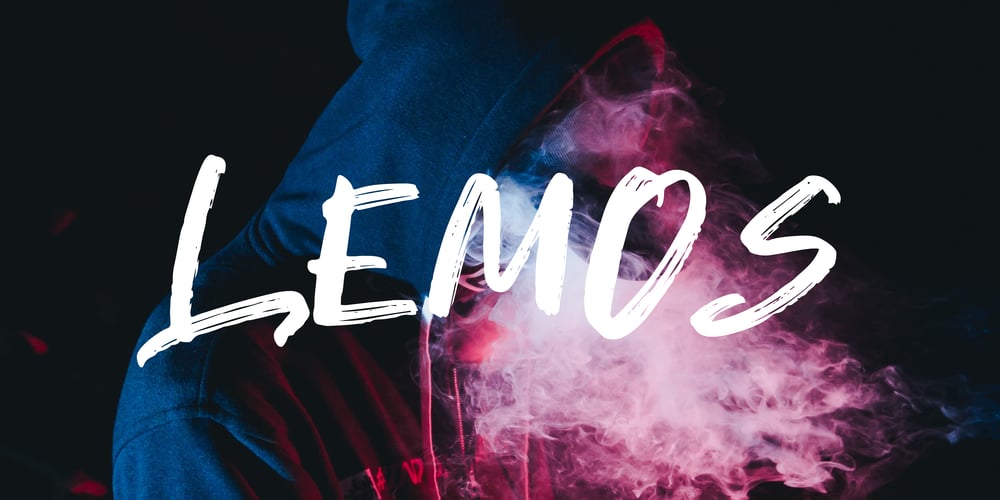
Lemos Font Family was designed by Mariyana and published by Goodigital13. Lemos contains 1 styles and family package options. hand drawn brush who make the typeface looks very instant and messy.Uses for film title, cover album, logo, clothing, invitation, event, labels, poster, etc.